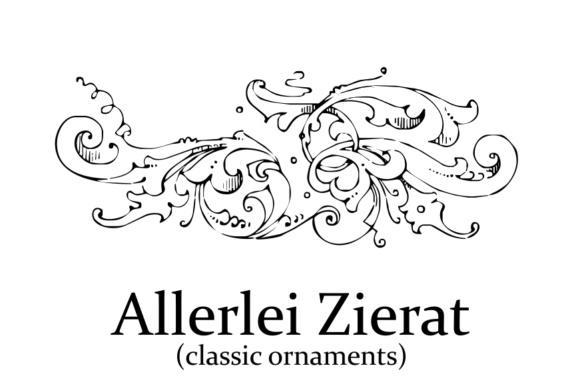
Discover the Timeless Elegance of Allerlei Zierat Font
Are you a designer or crafter looking for a unique and stylish way to add a touch of tradition and sophistication to your work? Look no further than the Allerlei Zierat font, a beautiful set of rare ornaments that have been carefully researched and interpreted from the 1902 Schelter & Gieseck book.
A Brief History of Allerlei Zierat
The Allerlei Zierat font is a stunning example of German type foundry, a hallmark of quality and craftsmanship that has been revered for centuries. The original ornaments were published in 1902 by Schelter & Gieseck, a renowned type foundry that was instrumental in shaping the typographic landscape of Europe.
The Allerlei Zierat font is an encyclopedic specimen that showcases a wide range of intricate designs, from delicate florals to ornate geometric patterns. Each ornament has been meticulously crafted to provide a sense of elegance and refinement, making it the perfect addition to any design project.
What Makes Allerlei Zierat So Special?
So, what sets Allerlei Zierat apart from other fonts and ornament sets? Here are just a few reasons why this font is a must-have for designers and crafters:
- Rarity: The original Allerlei Zierat ornaments are extremely rare, making this font a unique and valuable addition to any design collection.
- Artistic Interpretation: The Allerlei Zierat font has been carefully researched and interpreted to ensure that each ornament is an accurate representation of the original designs.
- Versatility: The Allerlei Zierat font can be used in a wide range of design applications, from traditional printing and typography to digital design and crafting.
- Timeless Elegance: The Allerlei Zierat font has a timeless quality that makes it perfect for designers and crafters who want to add a touch of classic sophistication to their work.
Using Allerlei Zierat in Your Designs
The Allerlei Zierat font is incredibly versatile, and can be used in a wide range of design applications. Here are just a few ideas to get you started:
- Wedding Stationery: Add a touch of elegance and sophistication to your wedding stationery with the Allerlei Zierat font.
- Packaging Design: Use the Allerlei Zierat font to add a touch of classic style to your packaging designs.
- Typography: The Allerlei Zierat font is perfect for use in typographic designs, such as posters, flyers, and brochures.
- Crafting: The Allerlei Zierat font can be used in a wide range of crafting applications, from scrapbooking to card making.
Tips and Tricks for Getting the Most Out of Allerlei Zierat
Here are a few tips and tricks to help you get the most out of the Allerlei Zierat font:
- Experiment with Different Sizes: The Allerlei Zierat font looks stunning in a wide range of sizes, from small and delicate to large and bold.
- Combine with Other Fonts: The Allerlei Zierat font pairs beautifully with other fonts, so don’t be afraid to experiment with different combinations.
- Use as a Design Element: The Allerlei Zierat font can be used as a design element in its own right, rather than just as a font.
The Allerlei Zierat font is a true treasure trove of design delights, offering a wide range of intricate and elegant ornaments that are sure to add a touch of sophistication and style to any design project. Whether you’re a designer, crafter, or simply someone who appreciates the beauty of traditional typography, the Allerlei Zierat font is a must-have addition to your collection.